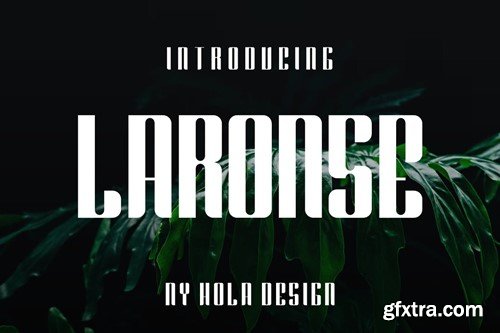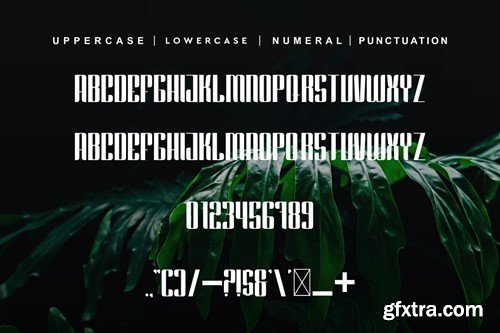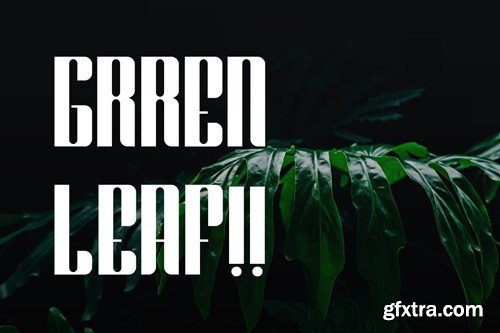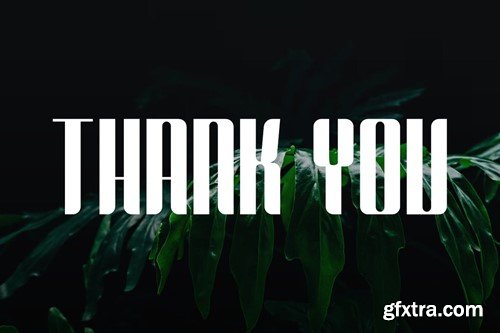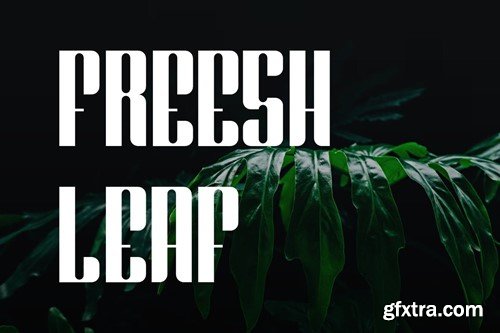
Laronse Font
Laronse Font Font is unique . Ready to use for your design like labeling, movie sceen, poster, movie title, gigs, album covers, logos, and much more. Included